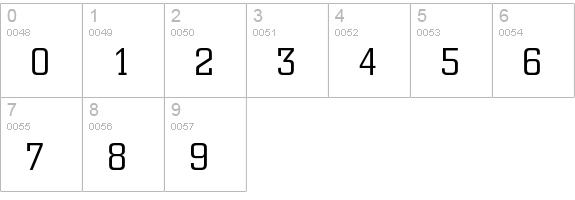
City BQ Light Font Details
City BQ Light is a refined, elegant variant in the City typeface family \xE2\x80\x94 well suited to elegant body text, refined sub-headings, and luxury branding.
City BQ Light font is a sleek and modern typeface that exudes sophistication and elegance. Its clean lines and gentle curves make it perfect for a wide range of design projects, from branding to editorial. The light weight of the font adds a touch of delicacy and refinement to any text, making it a versatile choice for both print and digital media. One of the best things about City BQ Light font is that it is completely free to download at FontsMarket.com. This means that you can easily access this stylish and professional font without having to spend a single penny. Whether you're a designer looking to elevate your creations or a business owner in need of a fresh new font for your marketing materials, City BQ Light font is sure to impress with its timeless appeal and effortless charm. Download it today and add a touch of class to your projects!